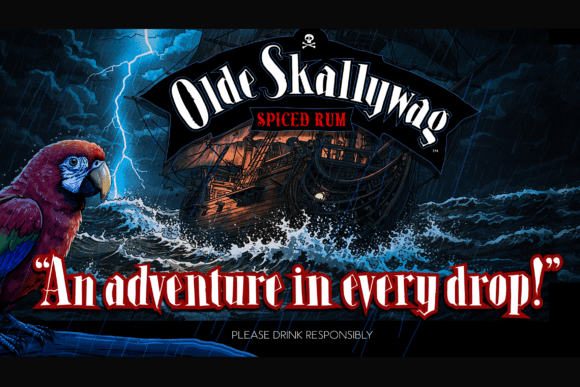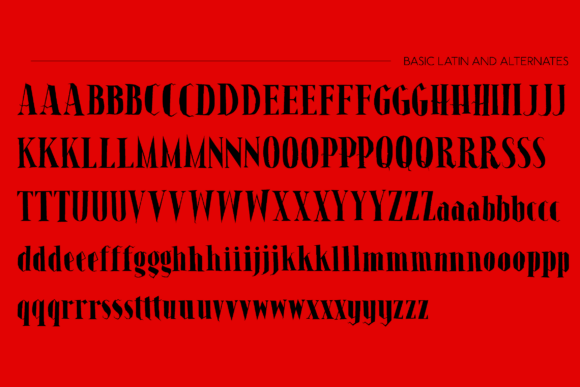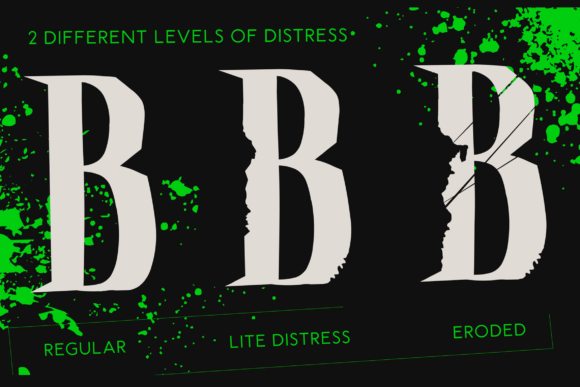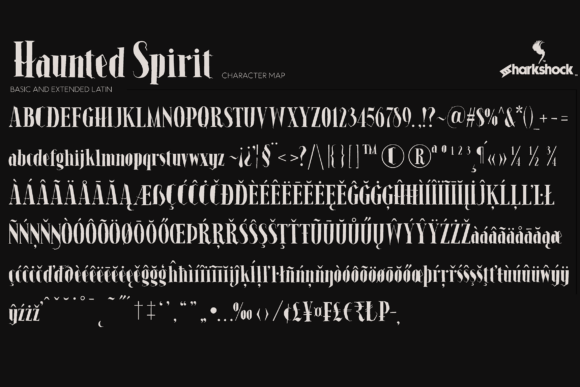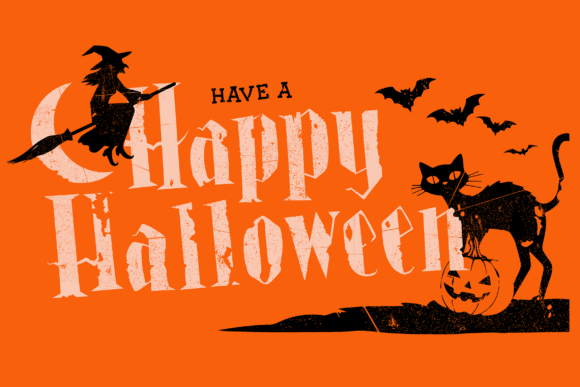
Introduction to Haunted Spirit Font
As designers, we’ve all been there – staring at a blank page, trying to conjure up the perfect font to match our creative vision. It’s that moment when the perfect font can make or break a project, and we’re excited to introduce you to one that’s sure to cast a spell – the Haunted Spirit Font.
With its eerie charm and asymmetrical strokes, this Halloween-themed display font is the perfect addition to any spooky or whimsical project. Whether you’re designing a party invite, a movie poster, or a witch-themed book, the Haunted Spirit Font will add a touch of magic to your design. And with its transparent background, high-quality design, and free download, it’s a valuable resource that designers of all levels can appreciate.
What sets the Haunted Spirit Font apart is its unique distressing feature, which allows you to control the level of wear and tear on your text. With three different versions and two sets of alternates, you can customize your design to fit your creative vision. And with OTF programming, you can even cycle through multiple instances of a letter within a single word – the perfect touch for a truly unique design.
Key Features of Haunted Spirit Font
- Unique Gothic-inspired design with a spooky atmosphere, perfect for creative projects.
- High-quality design resource with a large character set, including uppercase and lowercase letters, numbers, and punctuation marks.
- Includes a range of ligatures and swashes, adding an extra layer of depth and personality to your design.
- Perfect for designers working on Halloween-themed projects, horror movies, or any other creative project that requires a spooky and eerie atmosphere.
Honest Review: Haunted Spirit Font
As a designer, I’m always on the lookout for unique and high-quality design resources to elevate my creative projects. Recently, I stumbled upon the Haunted Spirit Font, and I was curious to see how it would perform.
Here are some of the things that work well with the Haunted Spirit Font:
- ✨ The font is highly customizable, allowing for a range of styles and effects.
- ✨ The transparent background makes it easy to layer over other design elements.
- ⚠️ The font may not be suitable for formal or professional projects, as it has a somewhat spooky and whimsical feel.
- ⚠️ The font is not as versatile as some other options, and may not work well in all design contexts.
Overall, I’m impressed with the Haunted Spirit Font, but I wouldn’t use it for every project. It’s a great design resource for creative projects that require a touch of whimsy and personality.
To get the most out of the Haunted Spirit Font, experiment with different font combinations, colors, and effects. Use it to add a spooky touch to your designs or to create a unique, eerie atmosphere.
The Haunted Spirit Font is ideal for horror-themed designs, spooky invitations, or Halloween decorations. You can also use it to create a mysterious or eerie atmosphere in your designs.